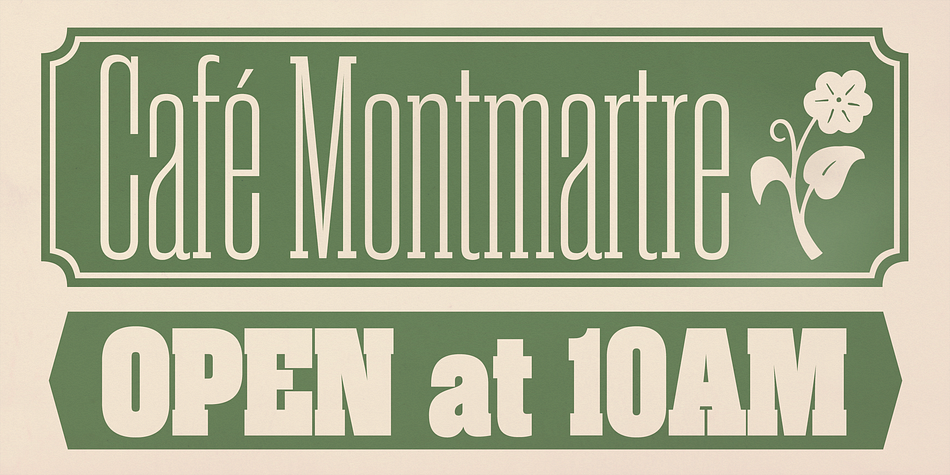
Rama Slab M
Rama Slab M is a display slab font family. This typeface has six styles and was published by Dharma Type.
Rama Slab is an antiqued slab serif designed inspired by 1800s-style wood type.
The all glyphs had been designed carefully to be retro-looking of the old time and to fill all with nostalgia.
This condensed font family with 18 styles will be the best solution for posters, titles and anywhere you need impact.
They include borders, ornaments and frames designed using vintage catalog of Hamilton in 1800s as a model.
Incidentally, -r- has its alternative glyph that can be used with OpenType salt feature.